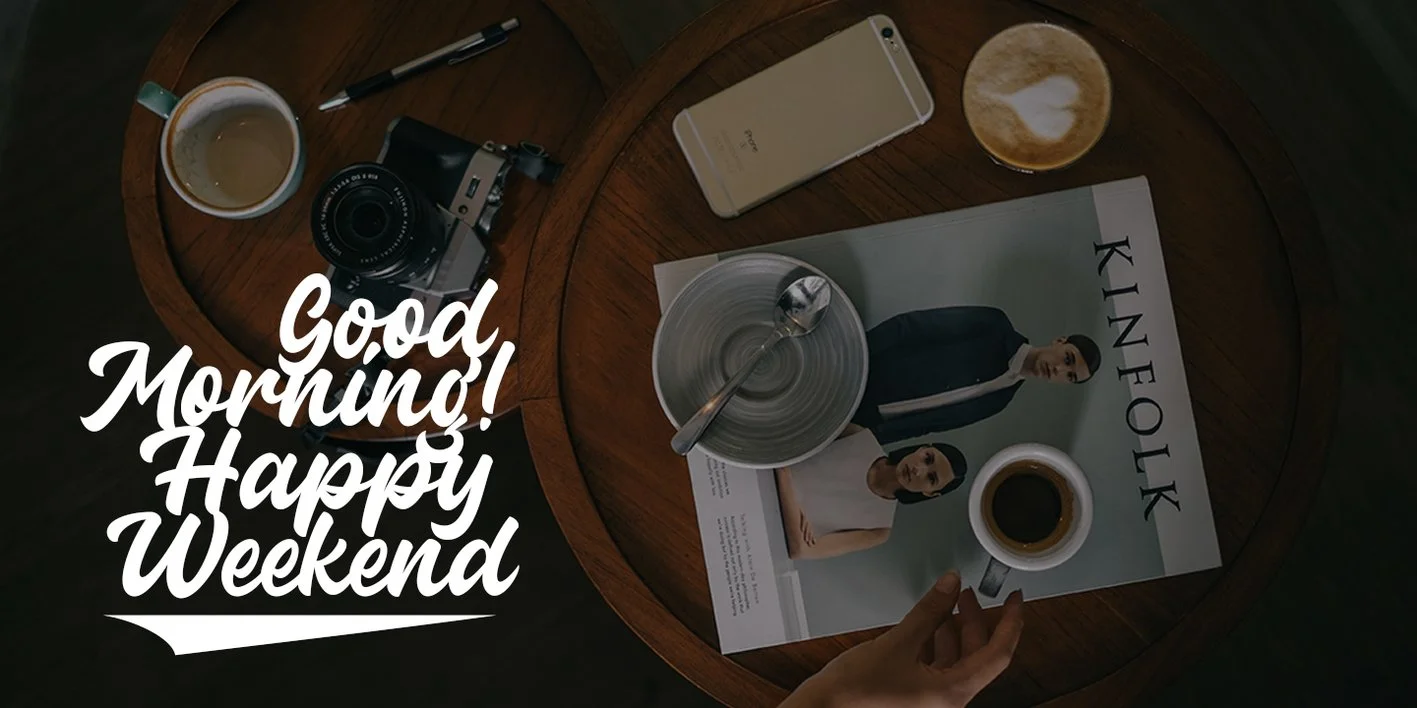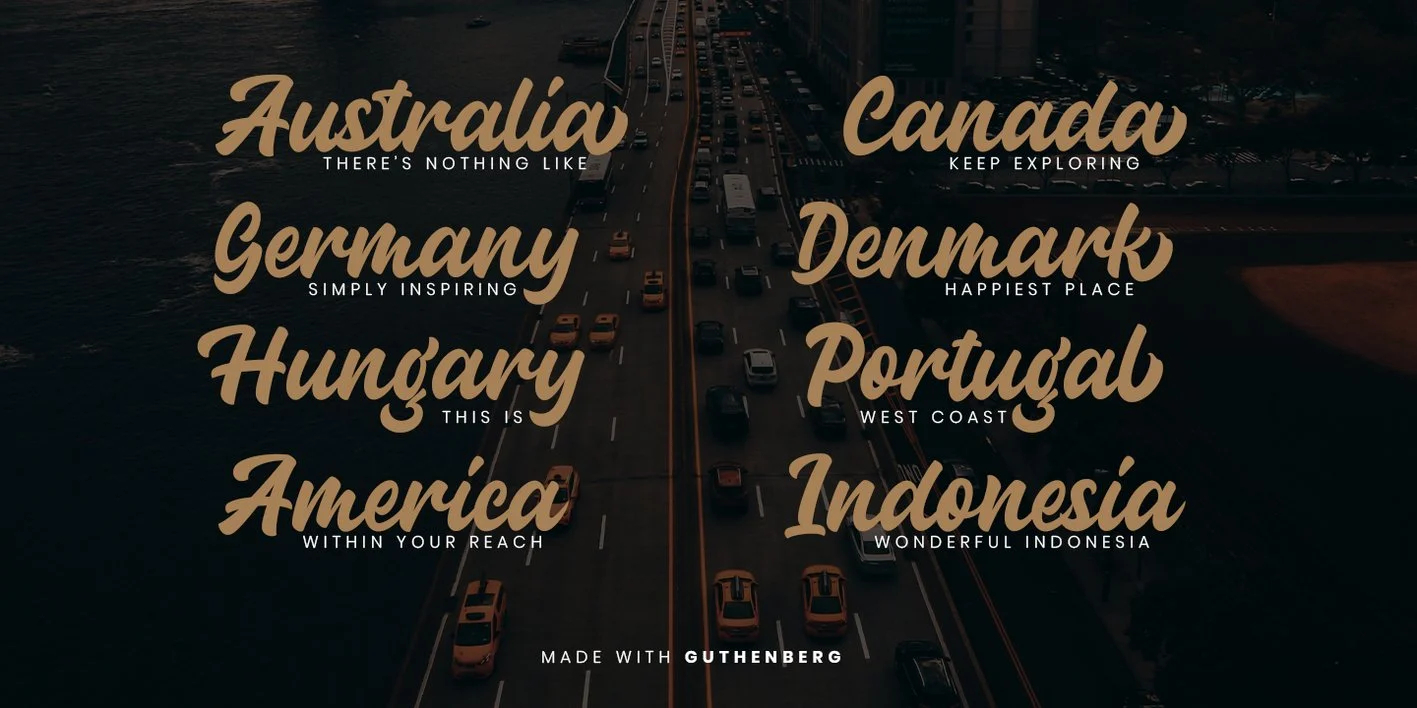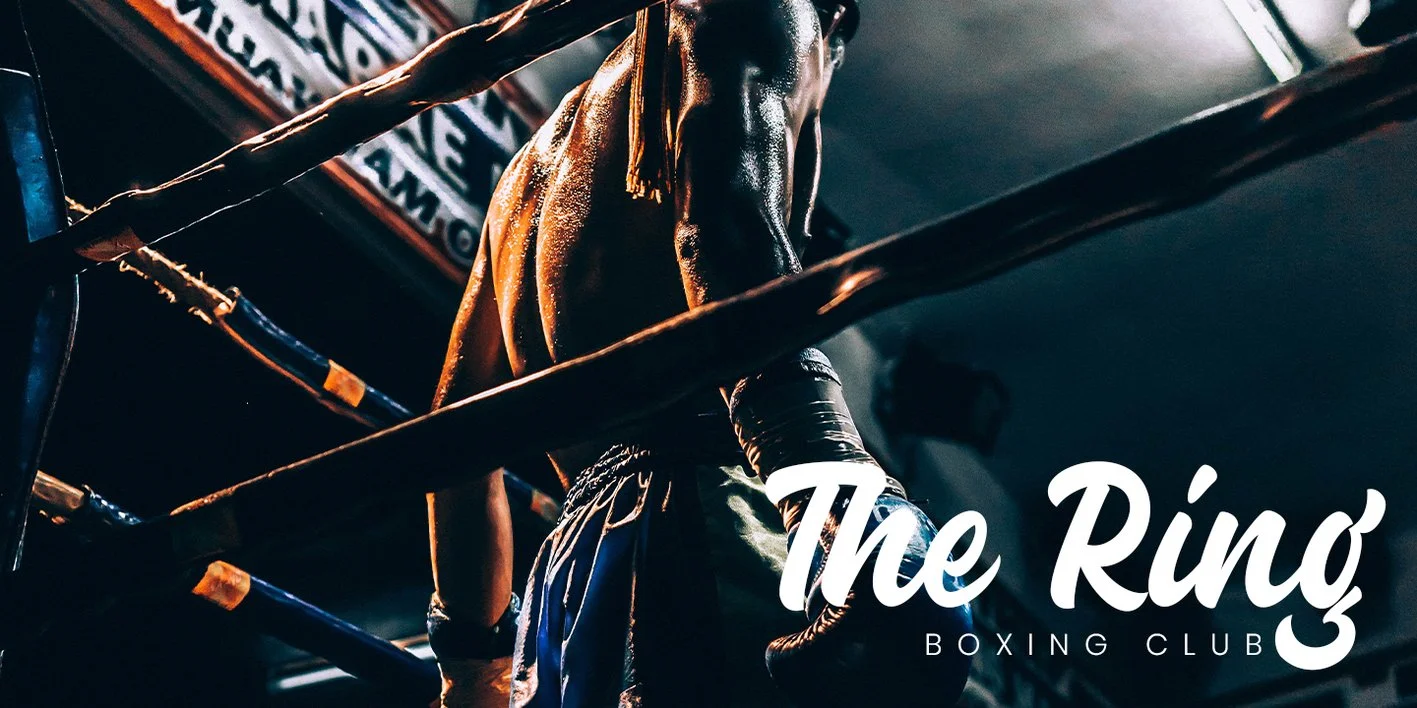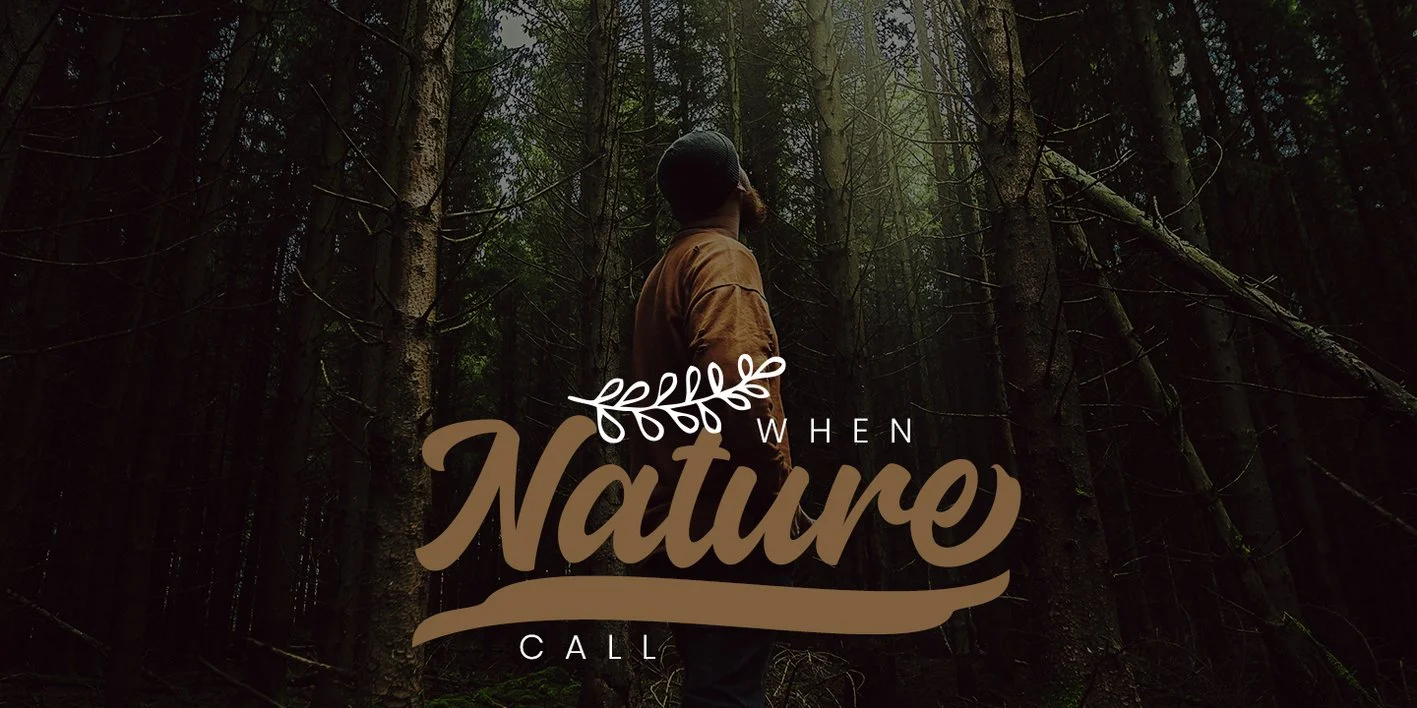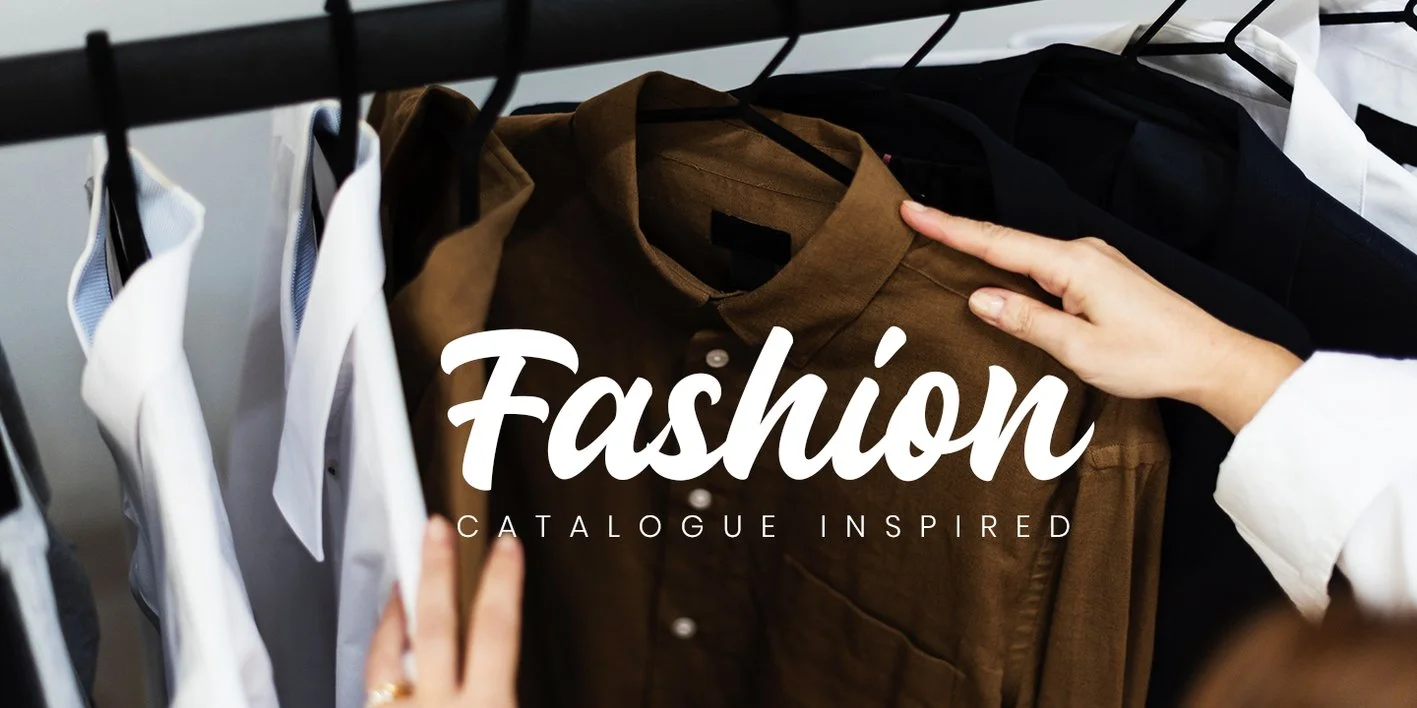
Guthenberg Font
There is a particular satisfaction in finding a typeface that delivers a confident voice that adapts to diverse briefs without compromise. Guthenberg consistently provides it. The typeface brings an elegant, calligraphic sensibility to a broad range of creative disciplines, with the kind of restraint that lets content lead that holds up whether the work is print-first or screen-first.
In practice, Guthenberg proves particularly effective for fragrance labels, feminine branding, advertising campaigns, annual reports, greeting cards. Designers reaching for it find that the type decisions feel resolved rather than laboured — a useful quality when client timelines are tight.
The range of applications extends to social media graphics, signage systems, perfume labels, poster creation. That breadth is deliberate: the proportions and spacing were stress-tested across a wide range of mock briefs before the typeface was finalised.
At smaller sizes the design retains its character without becoming cluttered. This resilience across scales makes Guthenberg equally suitable for a business card and a billboard — a useful property when assets must scale across a campaign.
Independent studios handling packaging and editorial work find Guthenberg a reliable choice for projects that demand both personality and restraint. The design avoids the self-conscious quirkiness that dates quickly, settling instead for considered distinctiveness that holds up over time.